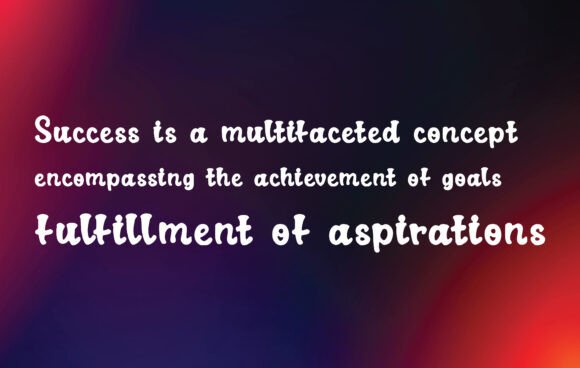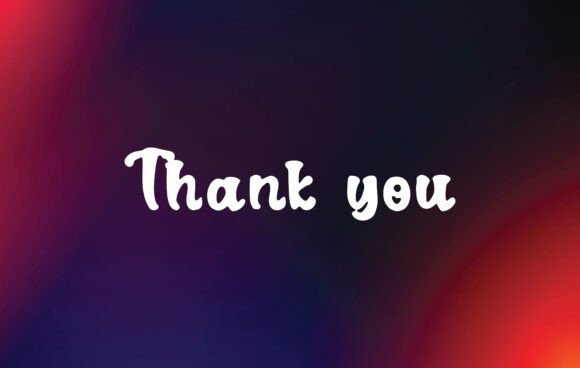
The Ultimate Design Companion: Arrione Font
I’ll never forget the time I was working on a magazine cover design, hours ticking away, and I just couldn’t find the perfect font. The client wanted something eye-catching, yet elegant; something that would make their brand stand out. That’s when I stumbled upon the Arrione Font. It was love at first sight! ✨ This font has since become my go-to favorite, and I’m excited to share its awesomeness with you.
• ✅ Versatility: Arrione Font is designed to be versatile, making it perfect for a wide range of creative projects, from magazine covers to social media posts.
• ✅ Readability: Its clear and easy-to-read design makes it an excellent choice for both titles and body text.
• ✅ Style and Personality: This font brings a unique blend of style and personality to any design, making it perfect for designers, crafters, and creative hobbyists.
While Arrione Font is an amazing design companion, there are a few minor quirks to be aware of: 🤔
• ⚠️ Limited Cyrillic Support: If you’re working with Cyrillic text, you might find the support a bit limited.
• ⚠️ Glyph Overload: With so many glyphs and stylistic alternates available, it can be overwhelming to navigate, especially for beginners.
Arrione Font was designed with the creative individual in mind. Its creator aimed to craft a font that would be both versatile and stylish, perfect for a wide range of design projects. The design process involved experimenting with different letterforms, shapes, and styles to create a unique and eye-catching font.
Q: What type of projects is Arrione Font best suited for?
A: Arrione Font is perfect for a wide range of creative projects, including magazine covers, t-shirts, social media posts, branding, wedding invitations, and greeting cards.
Q: Is Arrione Font suitable for body text?
A: Absolutely! Arrione Font is designed to be clear and easy to read, making it an excellent choice for body text.